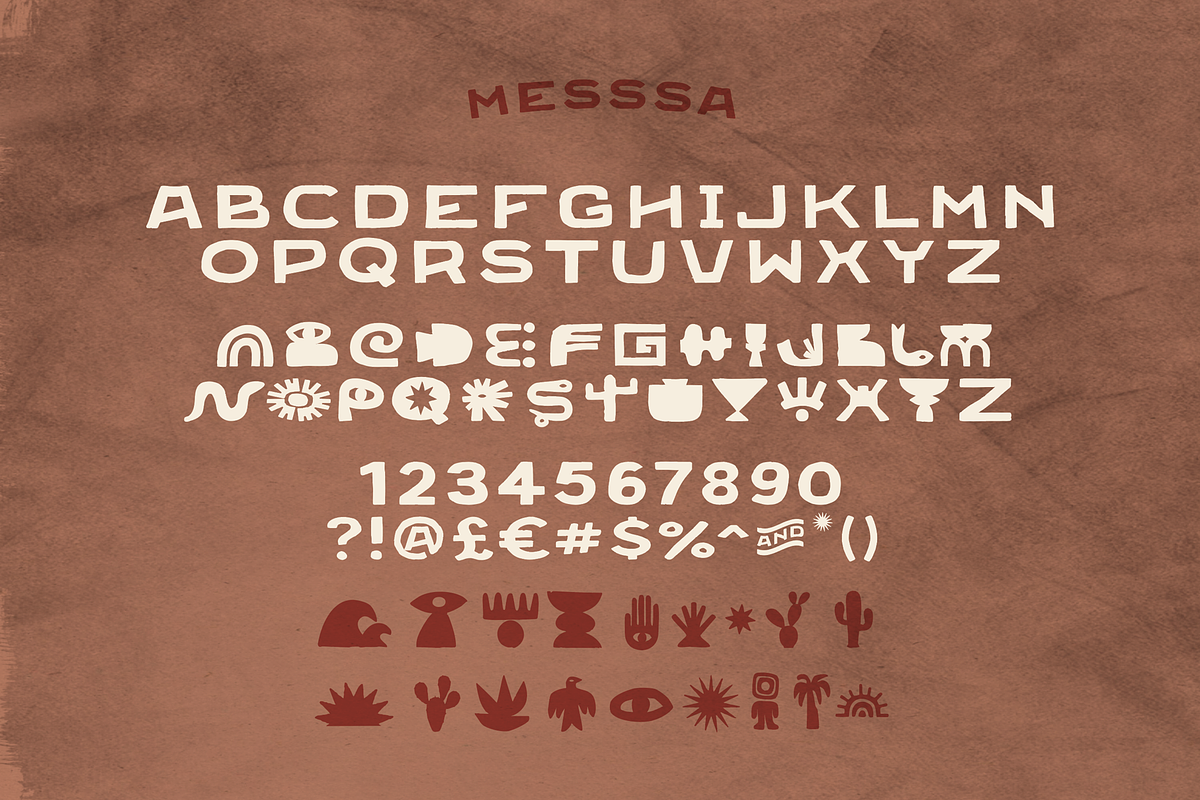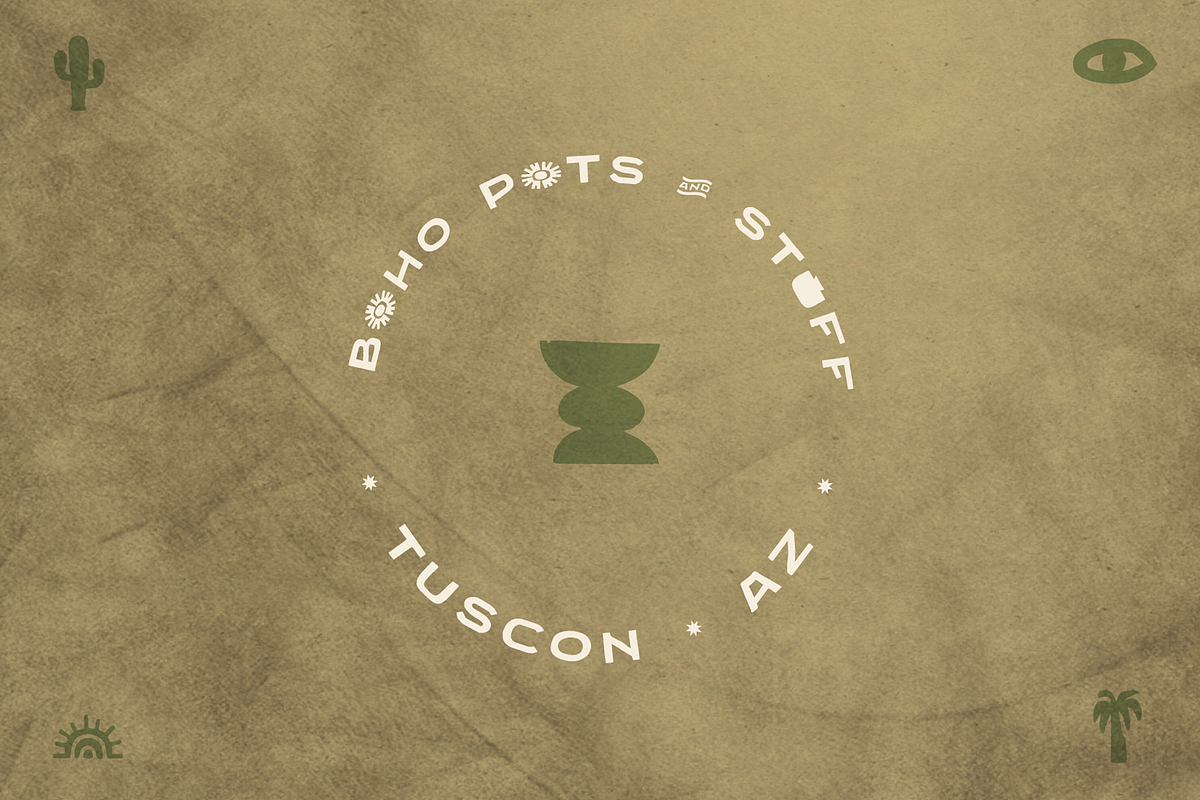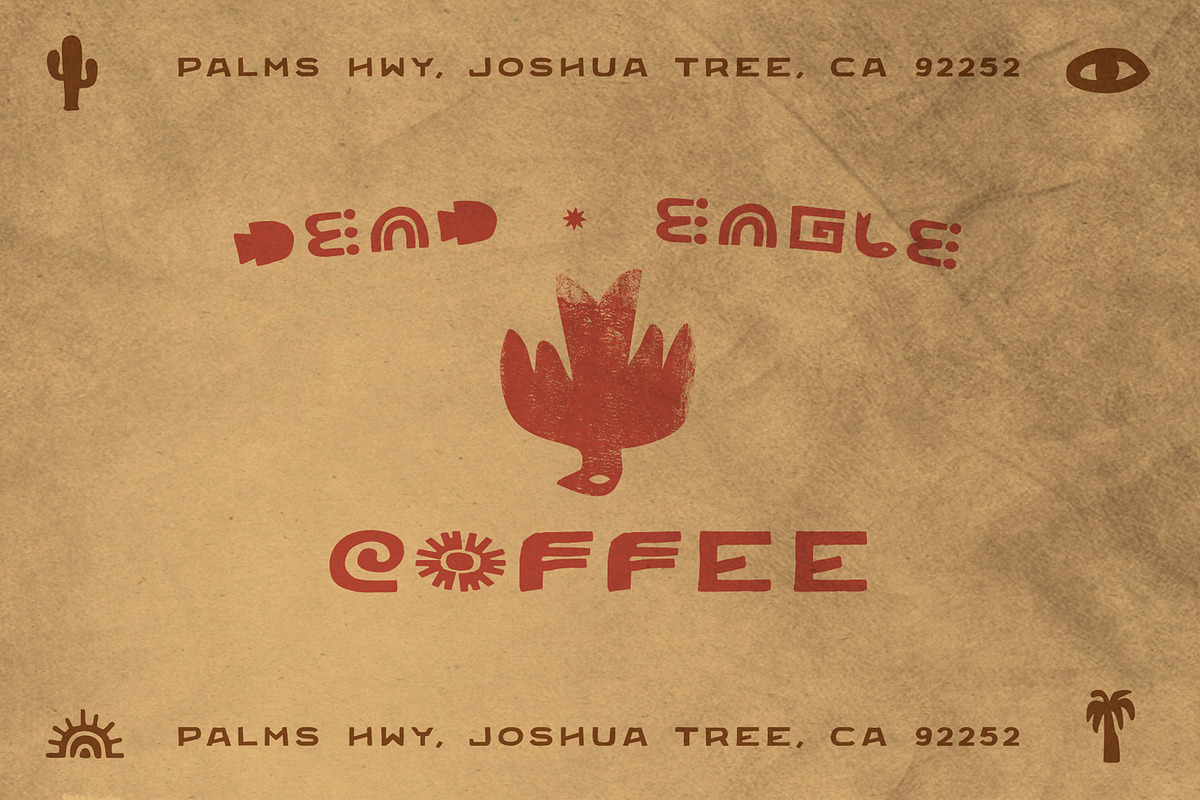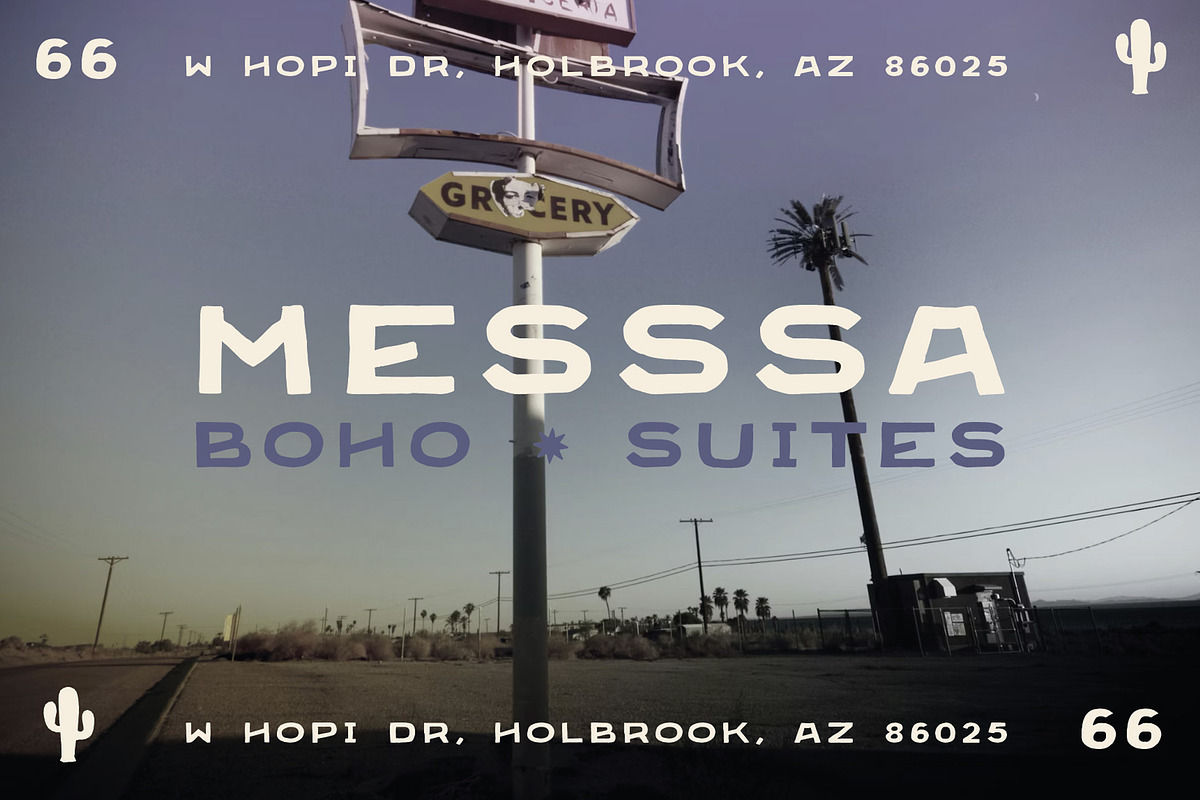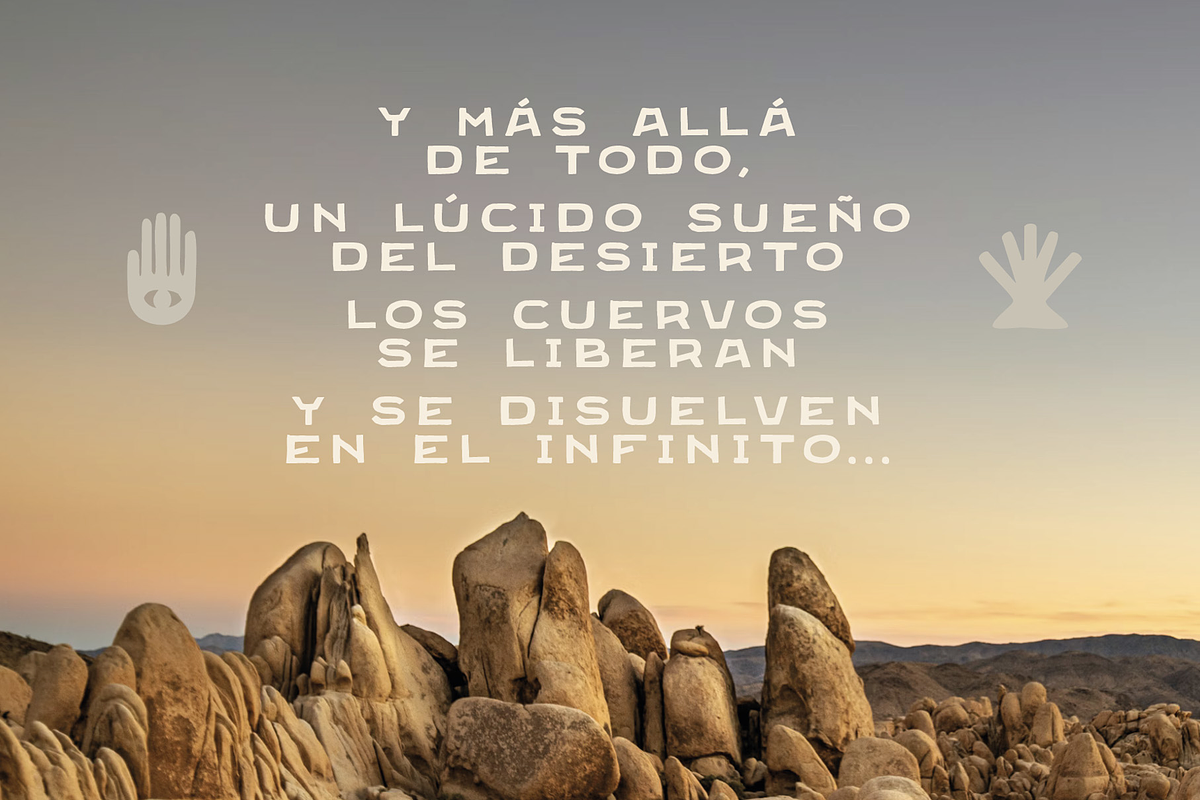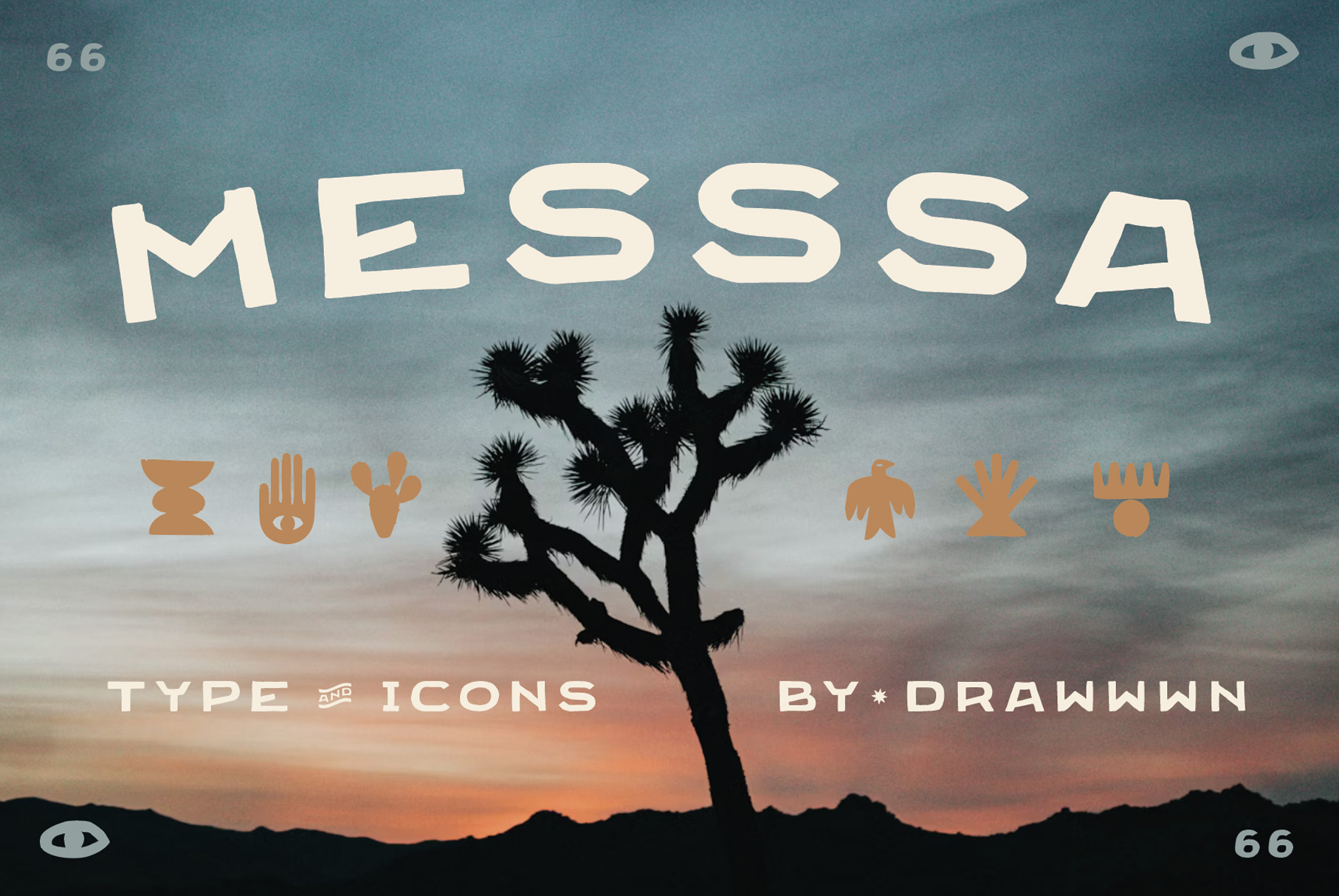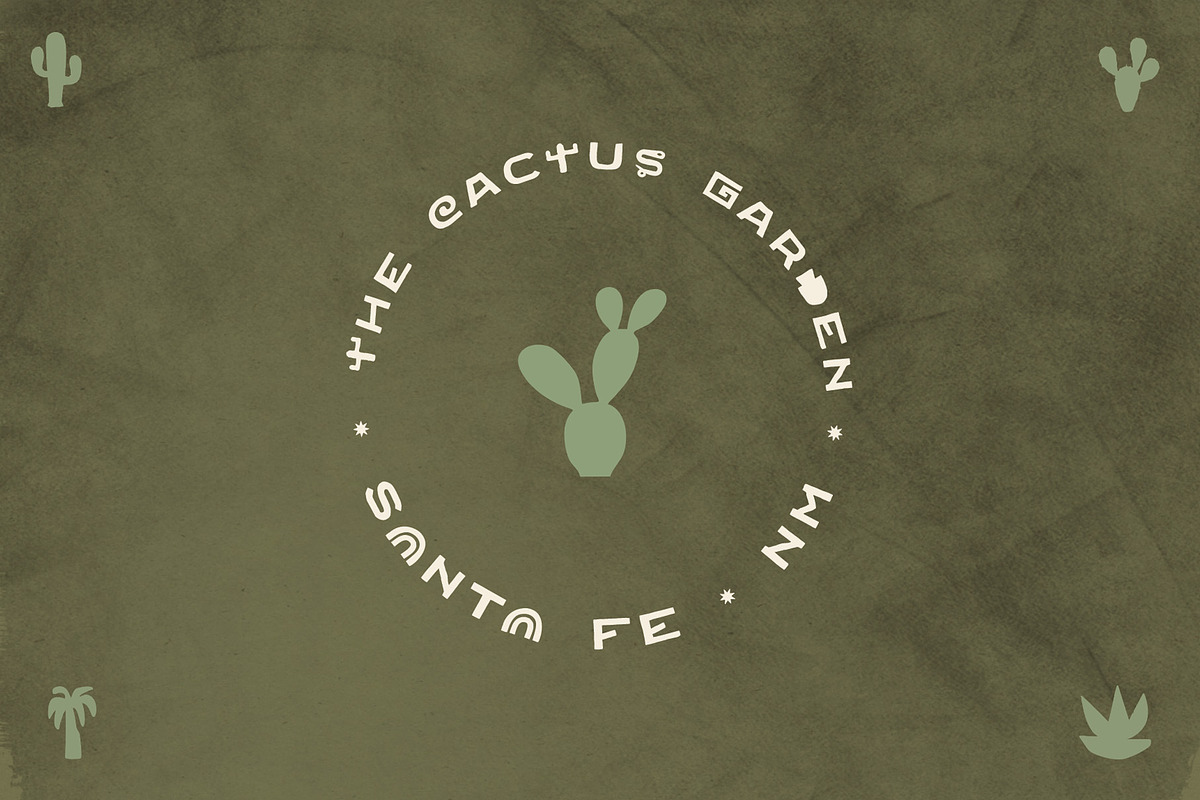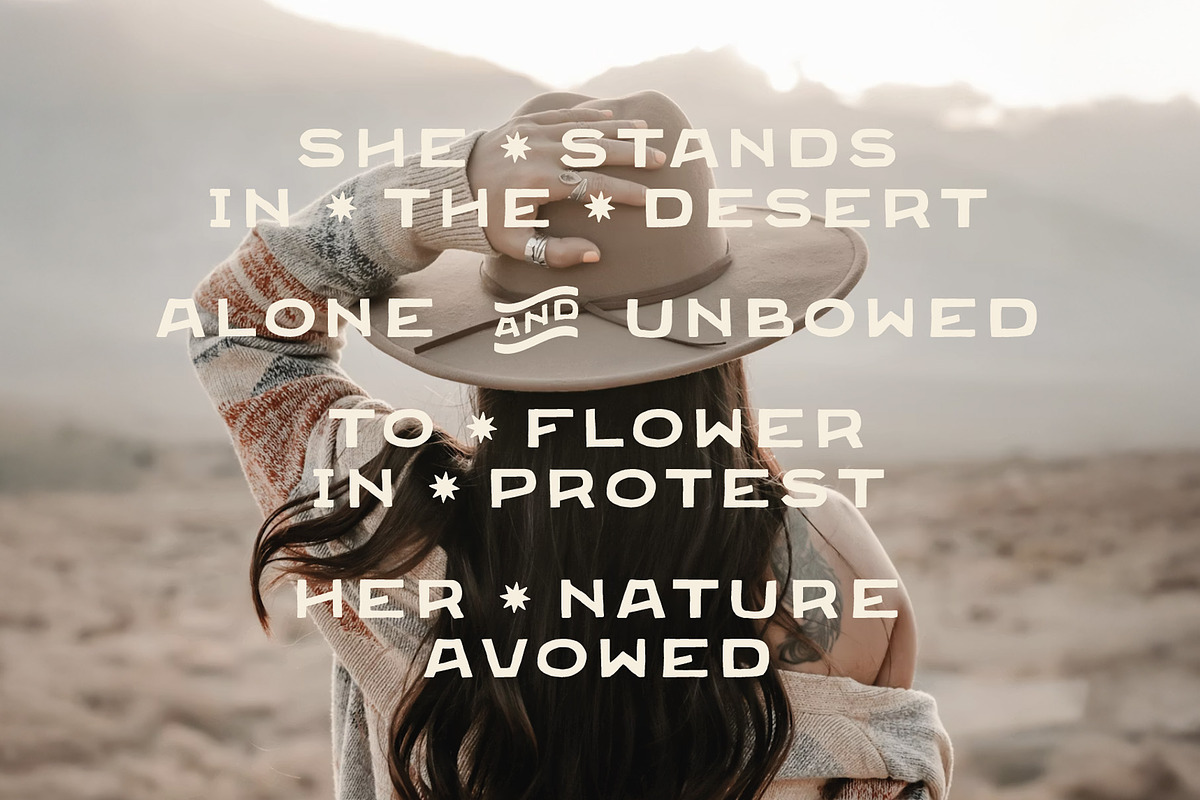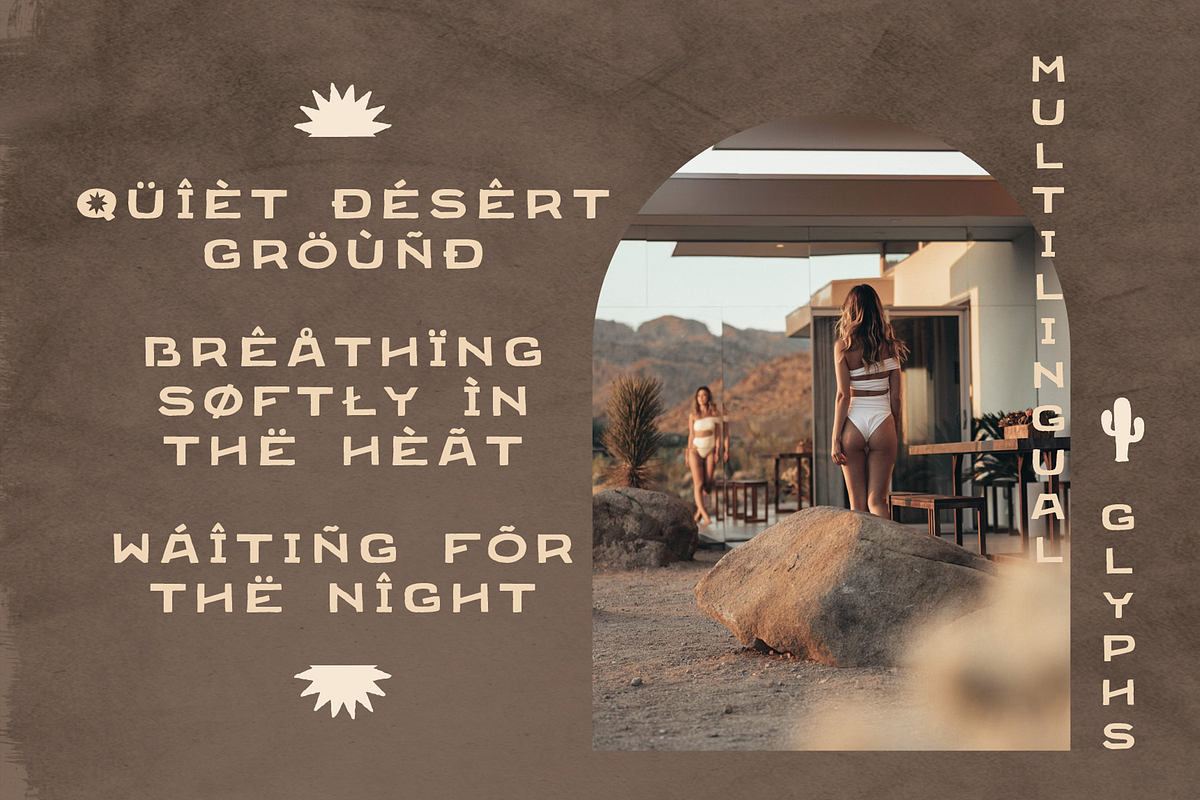
Messsa | Tex / Mex font & icons
Messsa is a character-rich vintage Western boho typeface, designed to feel sun‑baked, hand‑crafted, and full of soul. Drawing inspiration from desert signage, roadside cantinas, and worn typography with history, Messsa blends rugged Western influence with an easygoing bohemian spirit.
The typeface comes complete with a huge collection of icons and versatile alternates, giving you endless ways to customize your layouts and create authentic, one‑of‑a‑kind designs. From bold headlines and standout logos to packaging, posters, menus, and merch, Messsa adapts effortlessly while always keeping its unmistakable personality.
Made for tequila labels, desert hideaways, taco shacks, and laid‑back brands with attitude, Messsa brings a perfect balance of laid‑back grit and playful charm. Whether you’re channeling Joshua Tree cool, coastal cantina vibes, or modern Western nostalgia, Messsa delivers a timeless, character-driven look that feels both warm and rebellious.
Bold, expressive, and endlessly flexible... Messsa is built to keep your designs feeling fresh, soulful and full of life.